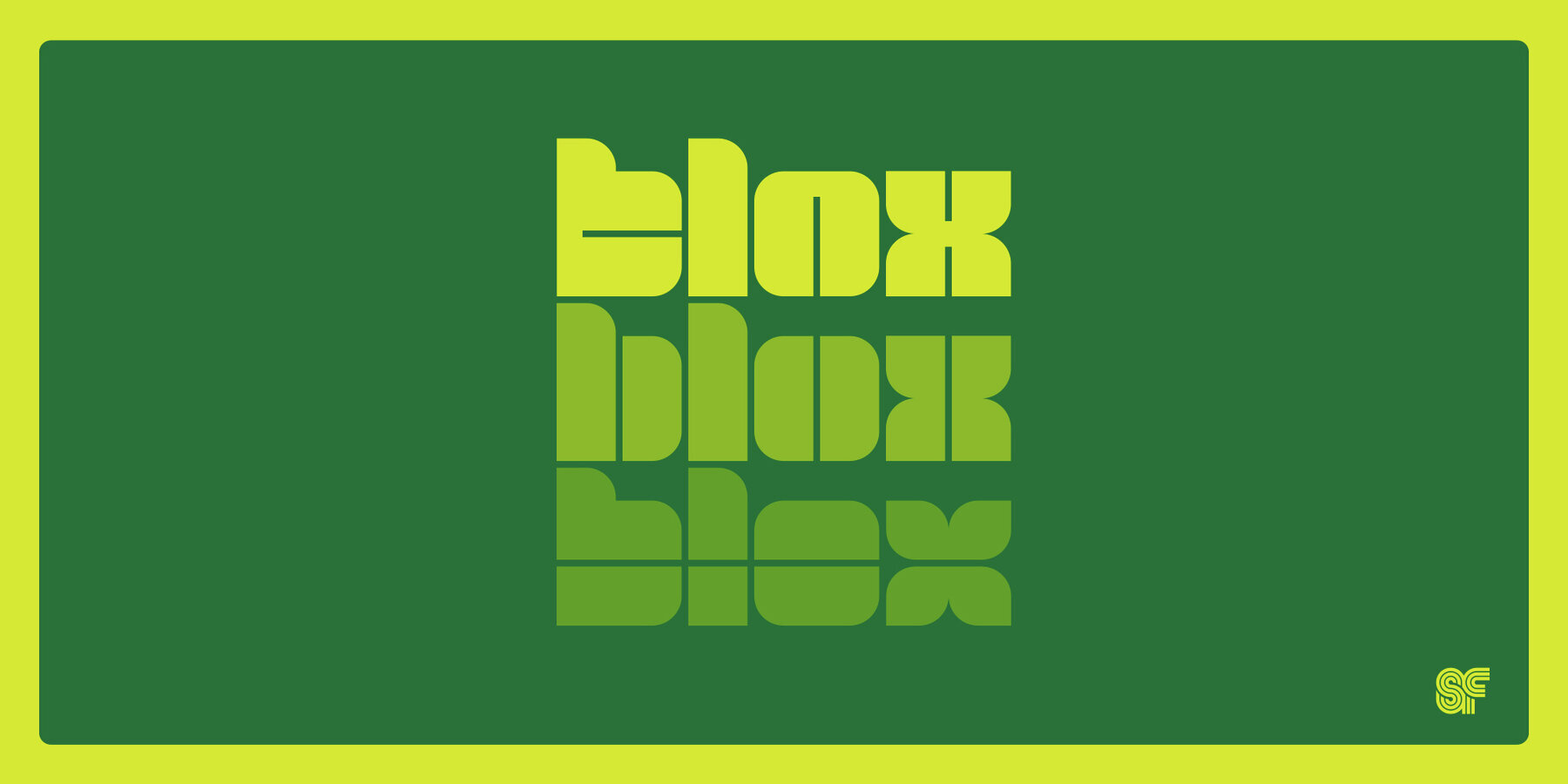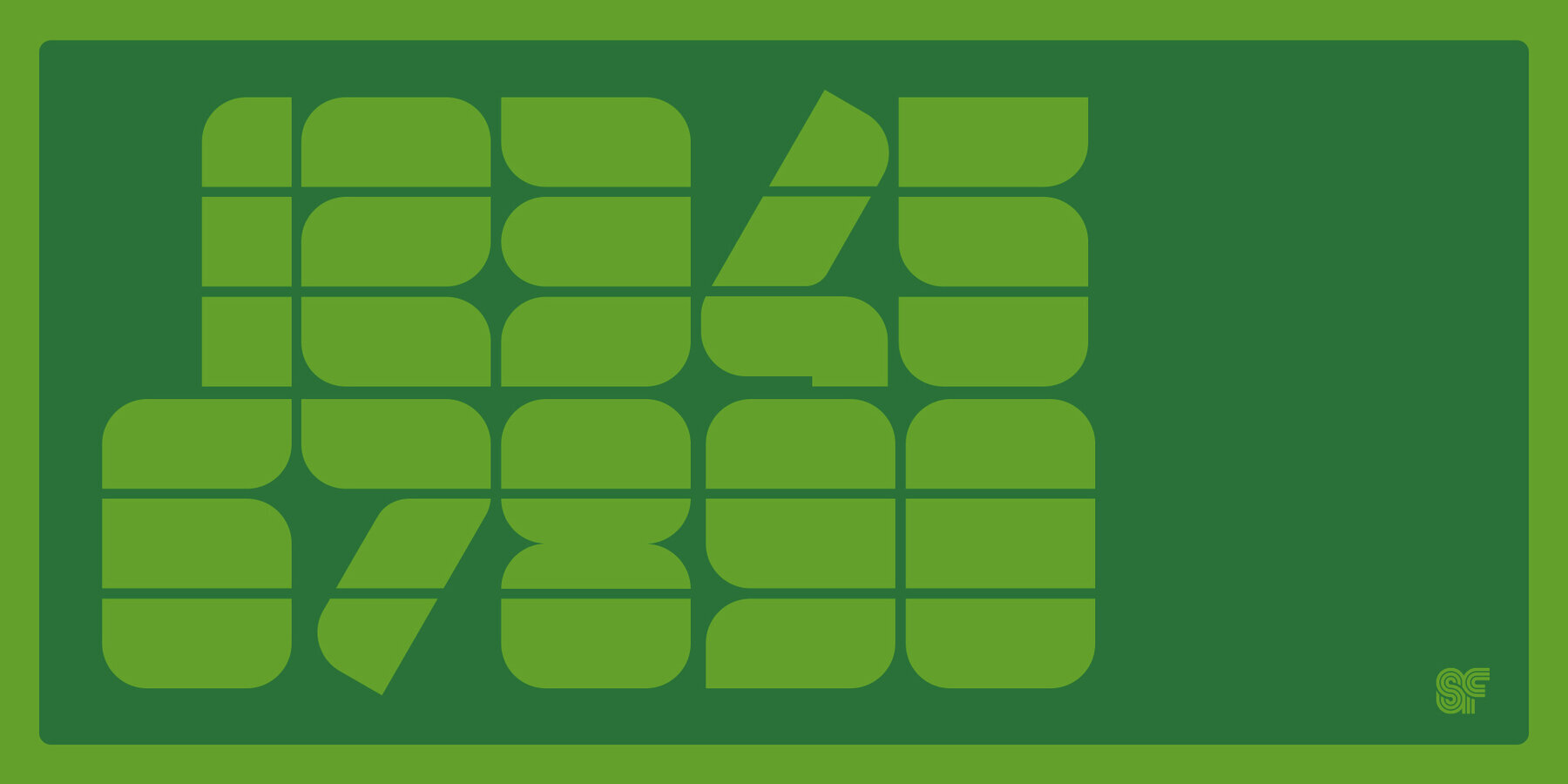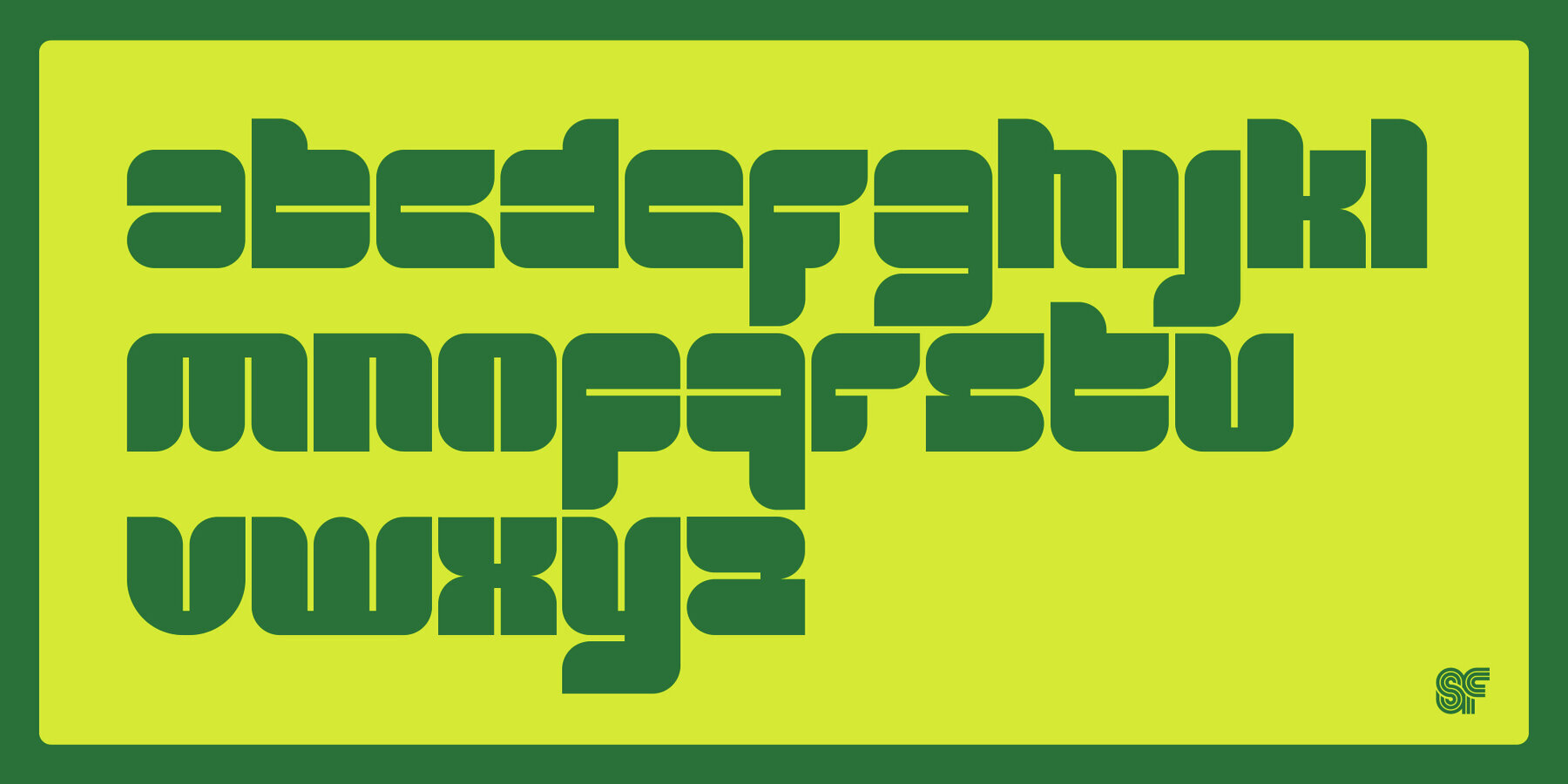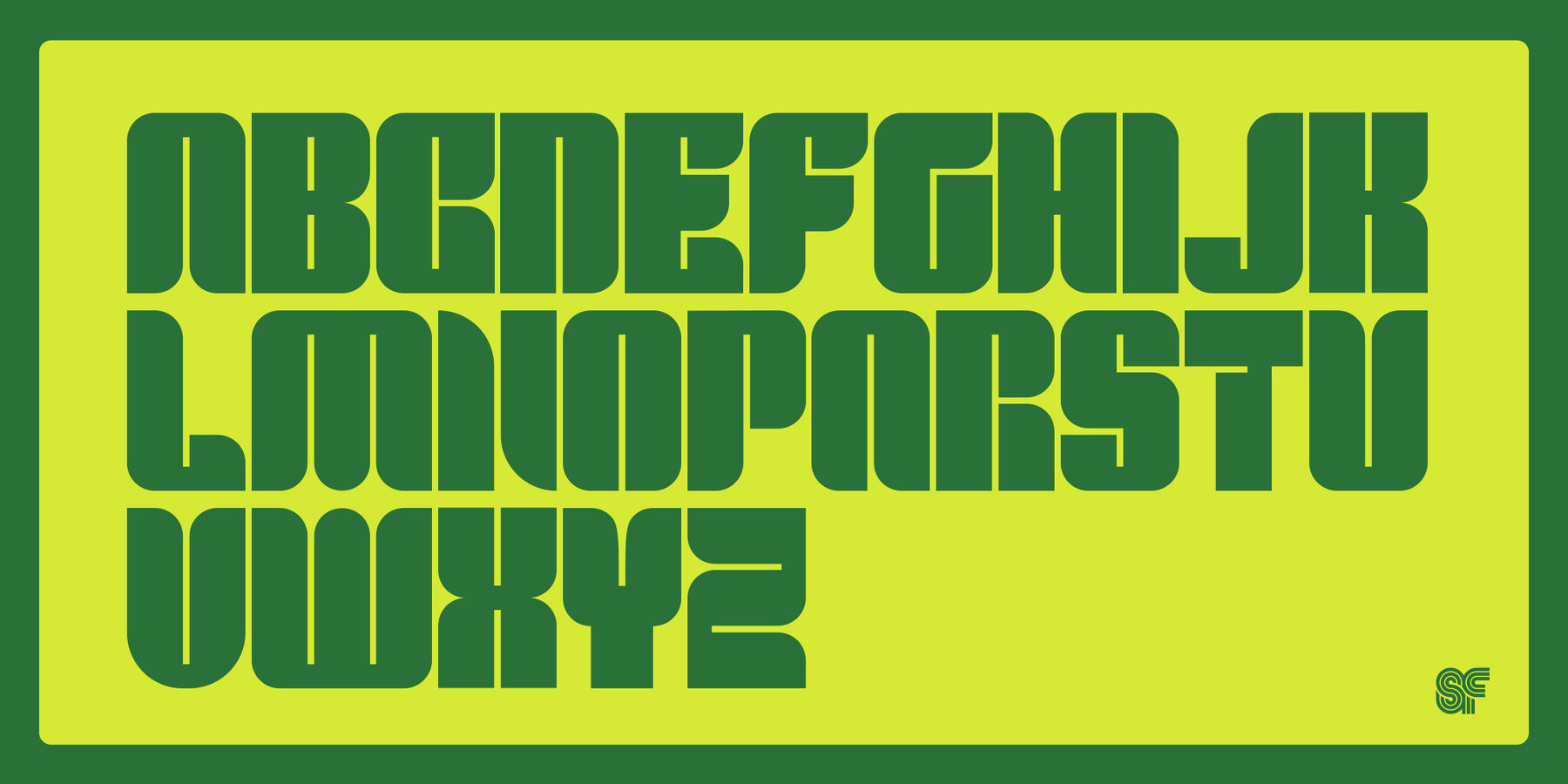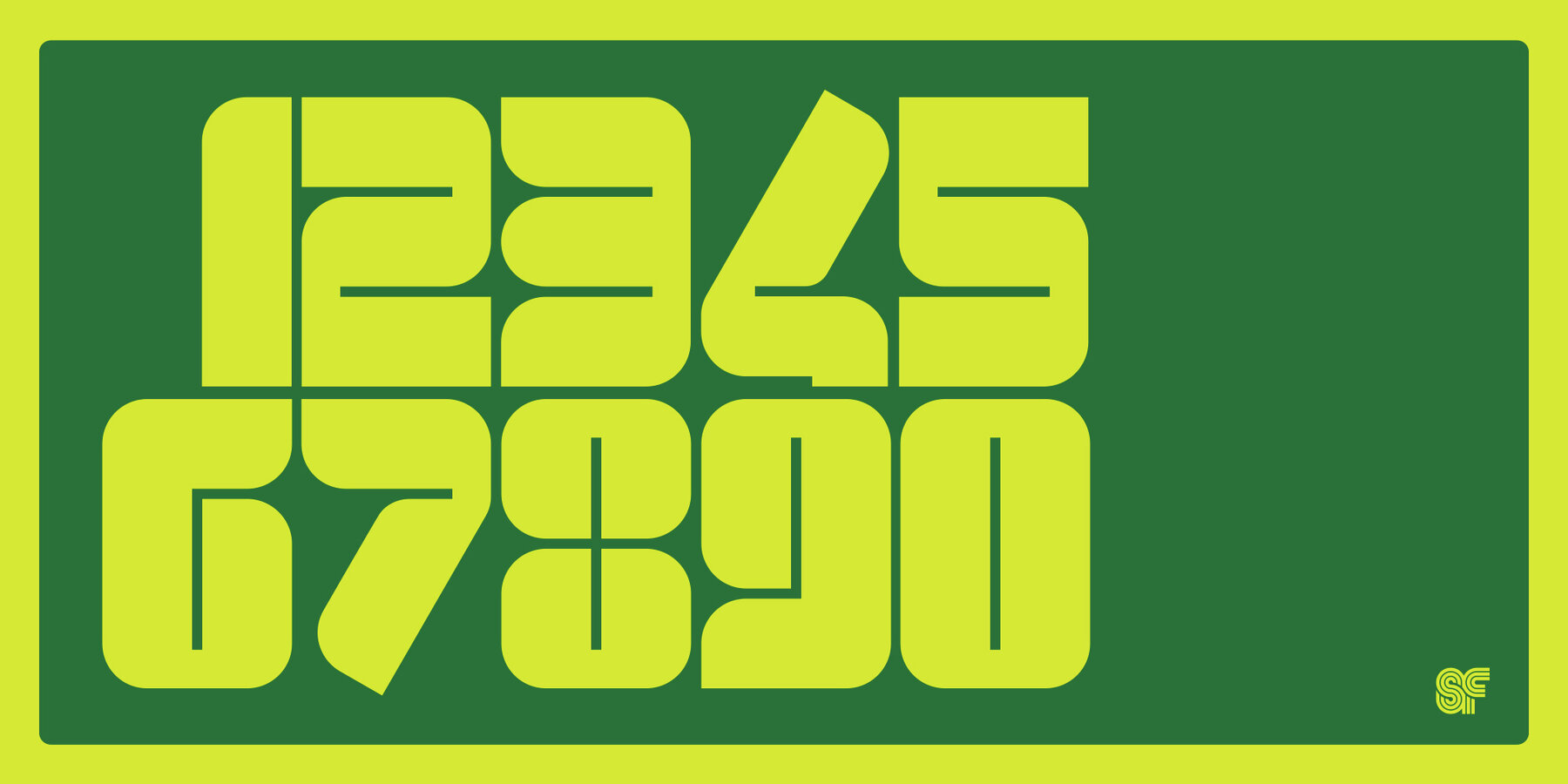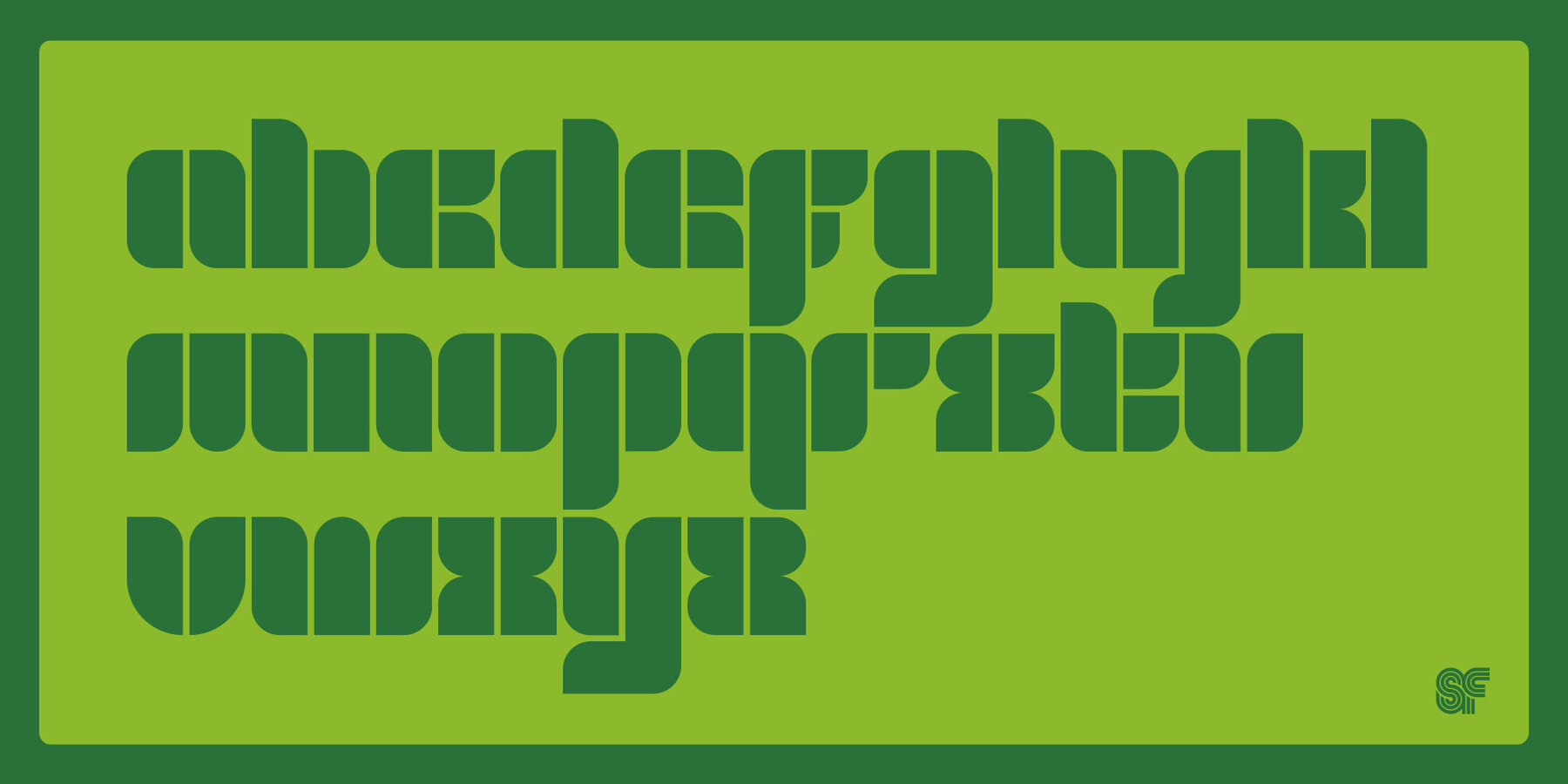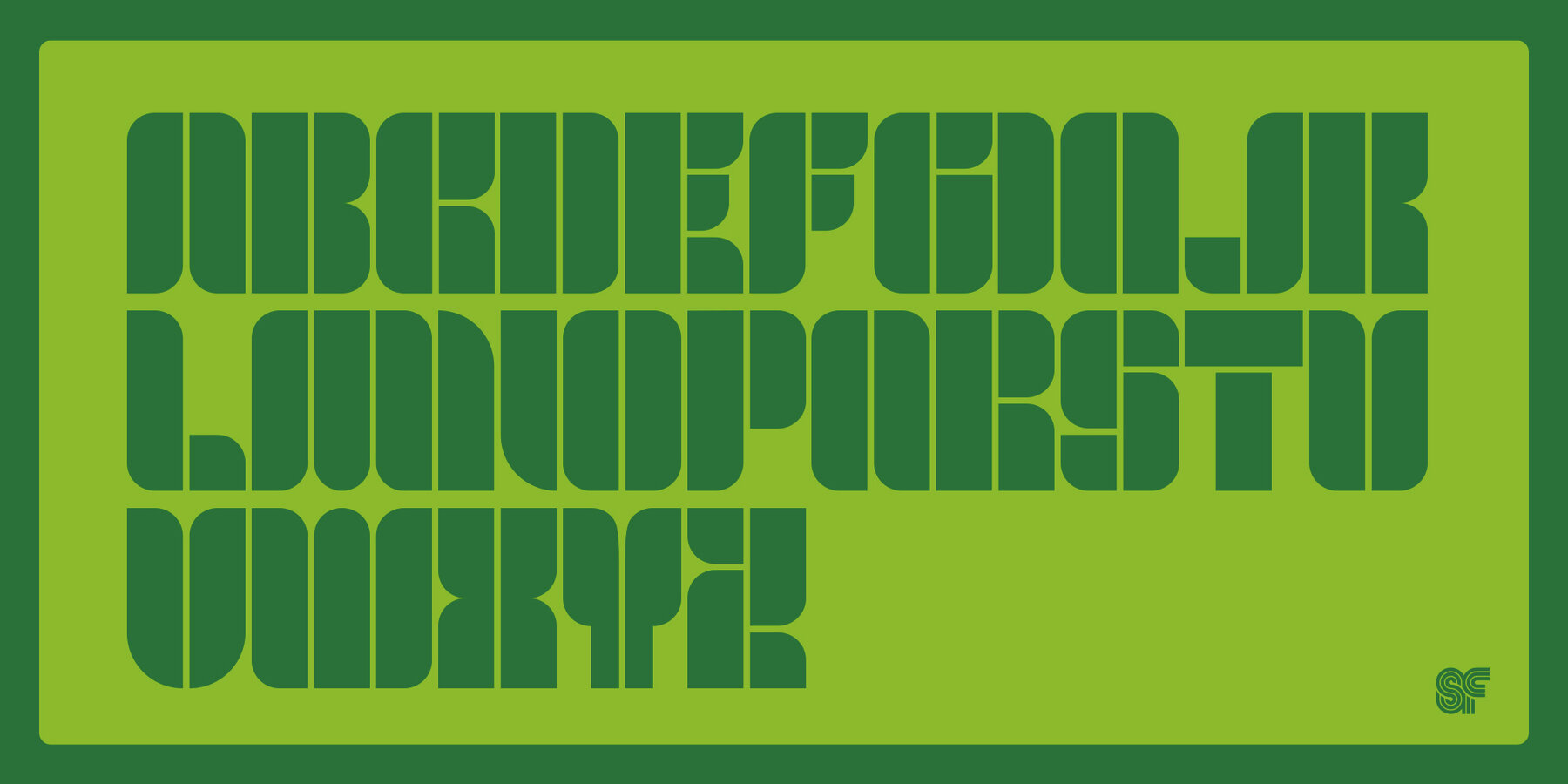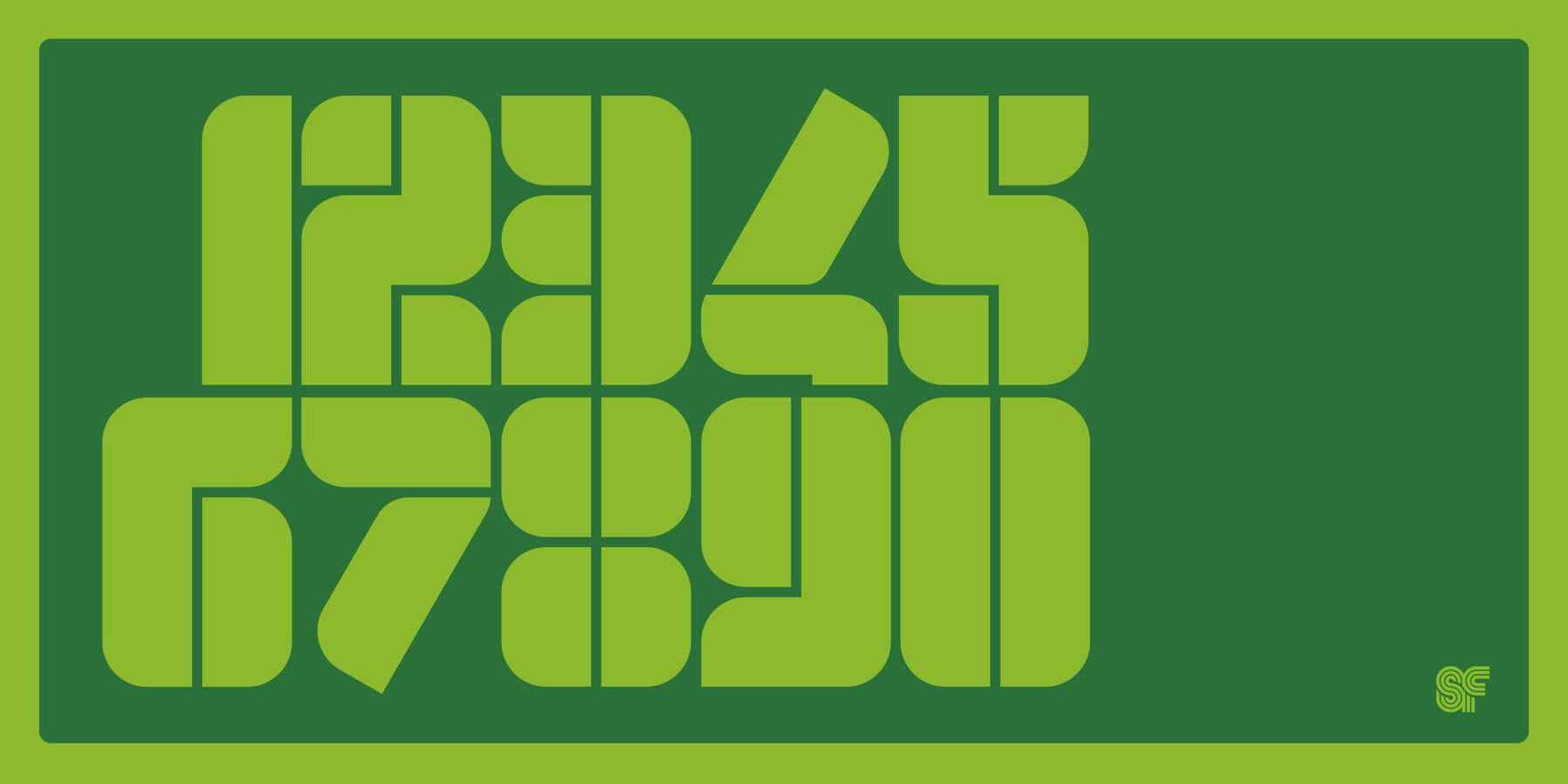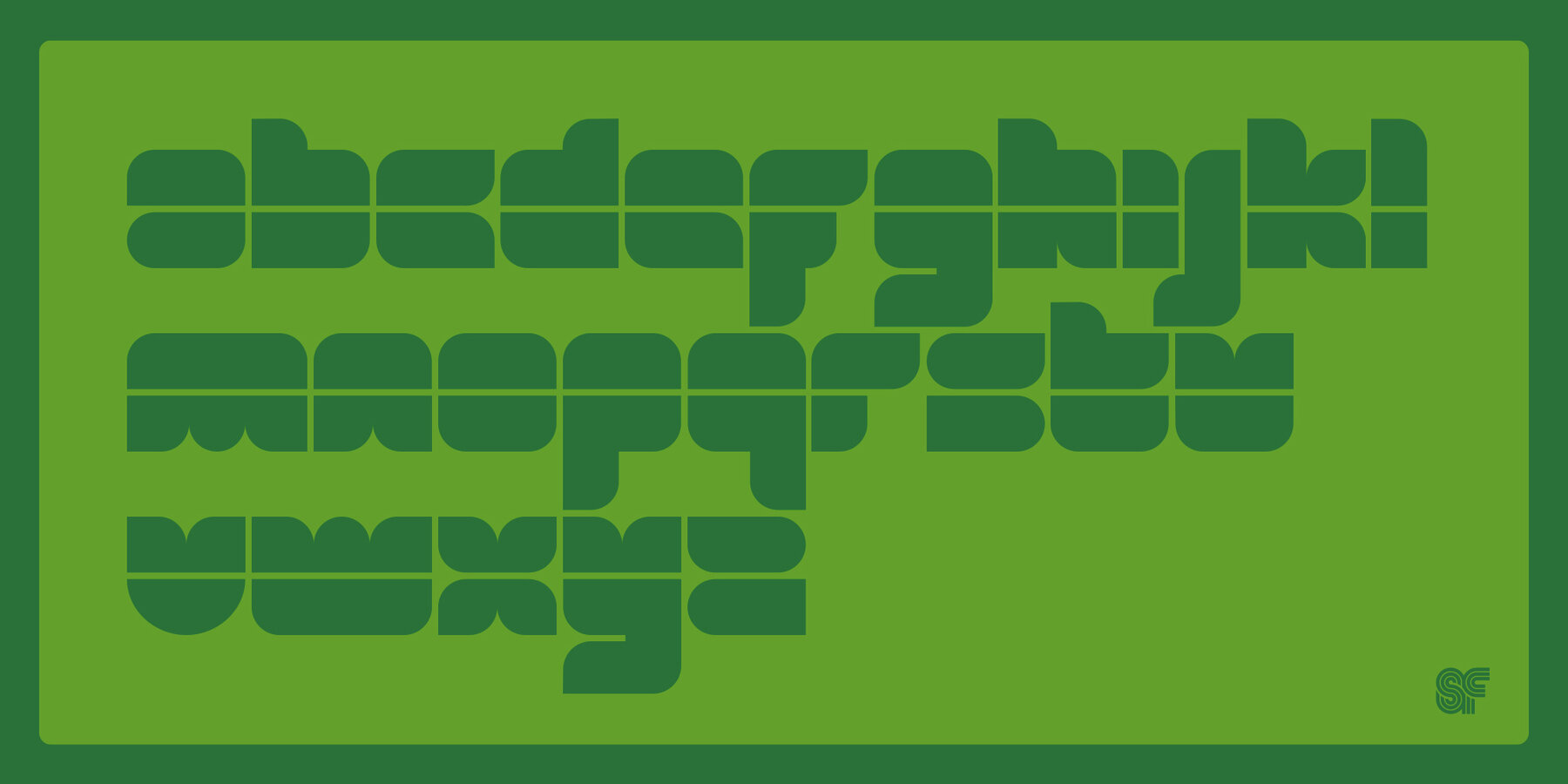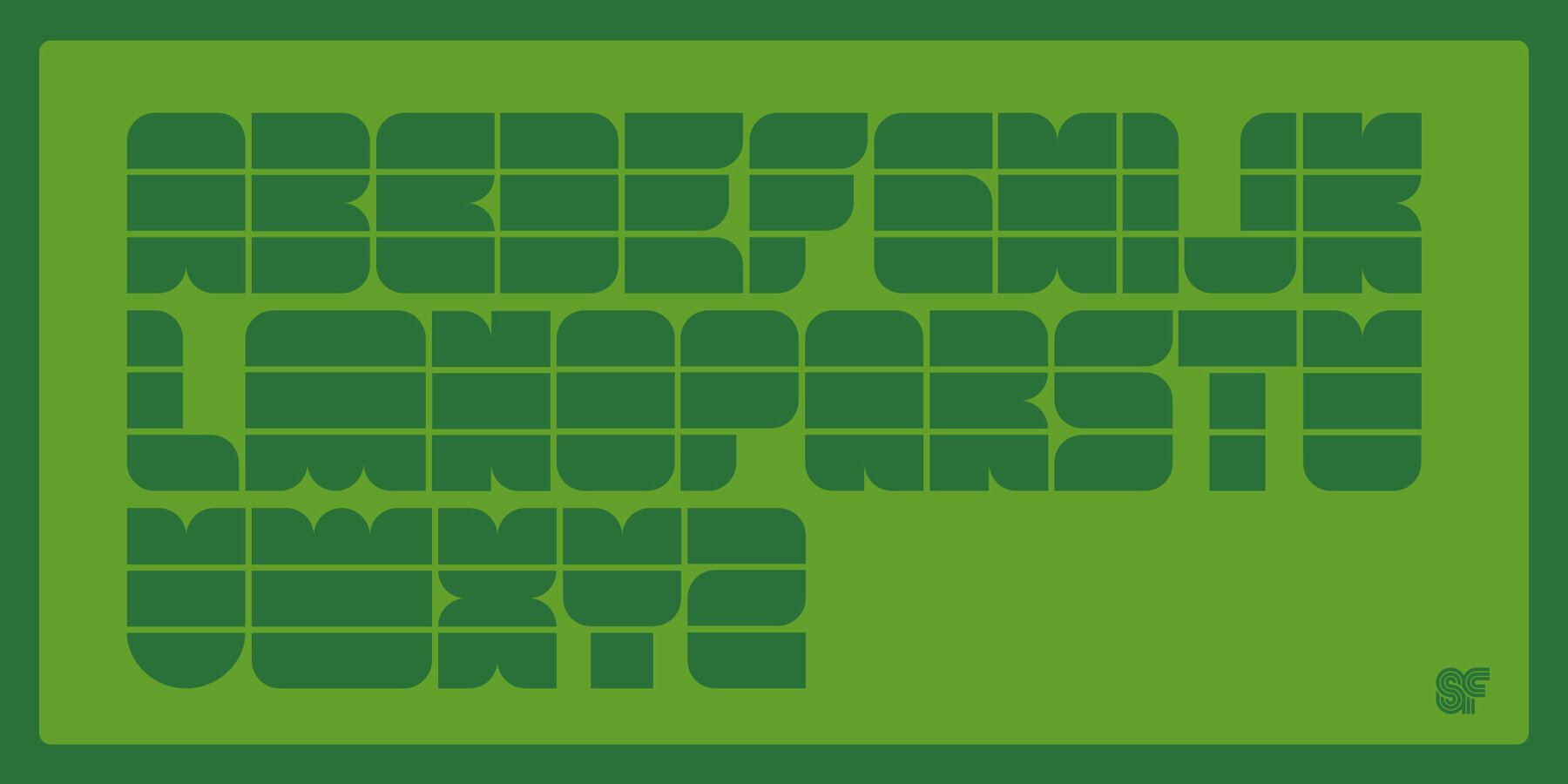
Blox Font
Blox Horizontal
Blox Incision
Blox Vertical
NEW – Remastered for 2025! Originally designed by Superfried in 2011, Blox has been completely remastered for 2025! This retro typeface features refined character designs, enhanced spacing, and the addition of a brand-new font style. Blox is characterized by its simple geometric structure and tight spacing, making it a standout choice for high-impact designs. Available in three unique styles: incision, vertical, and horizontal, Blox is perfect for a variety of applications, including branding, web design, and editorial projects. Elevate your typography with Blox, for greater impact and distinction.